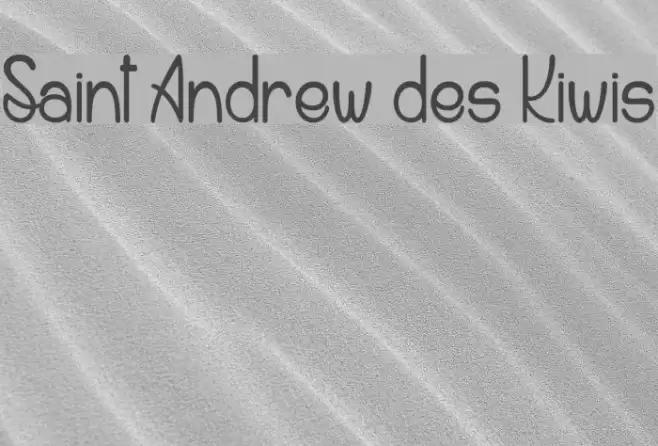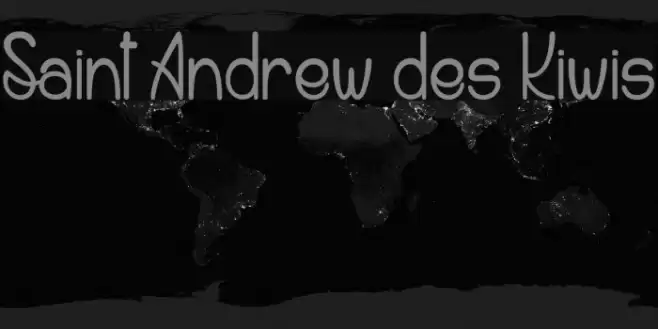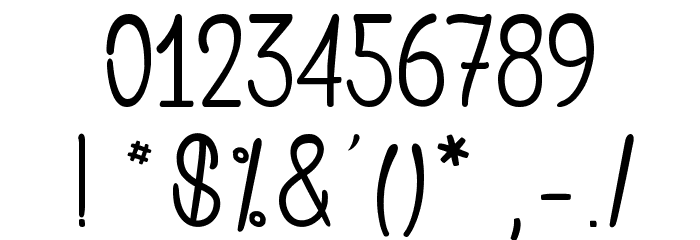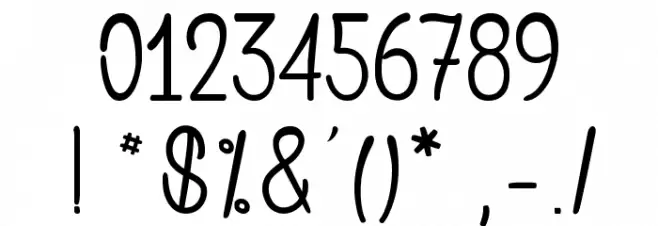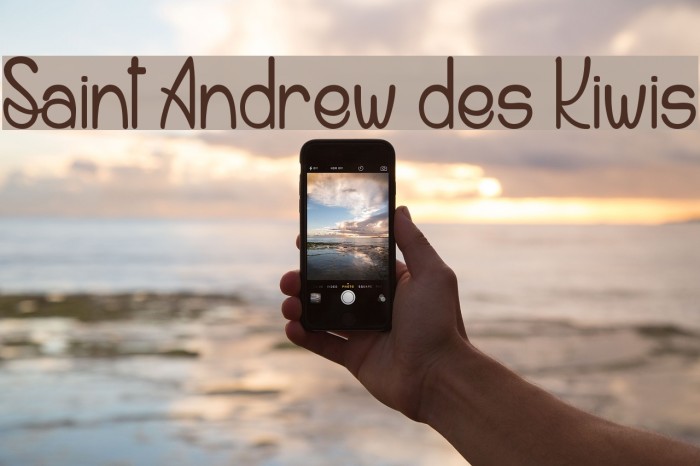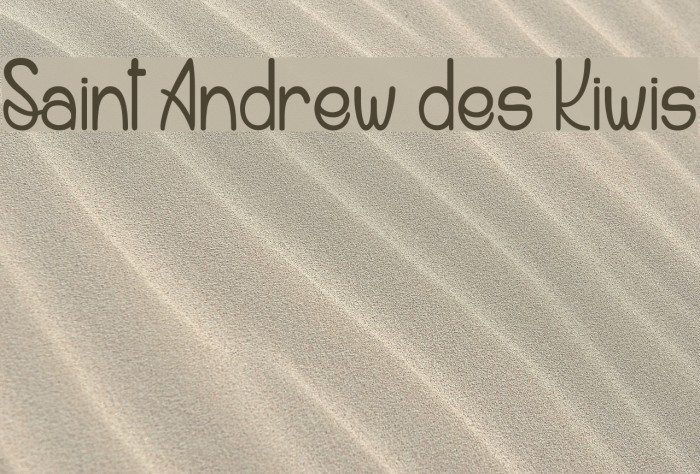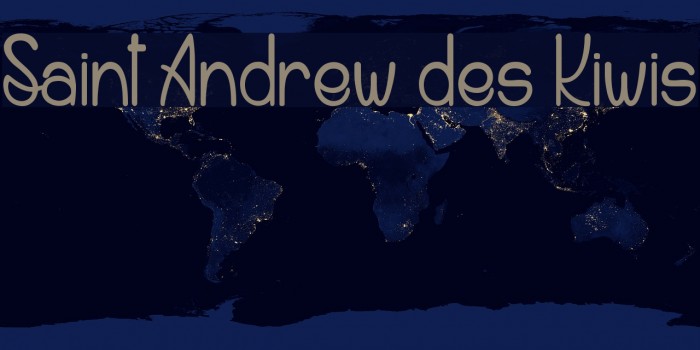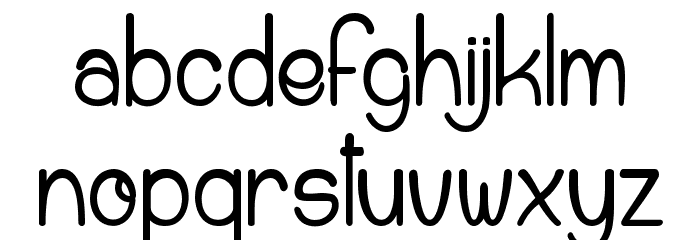
Saint Andrew des Kiwis Font
Saint Andrew des Kiwis Description
This font features a playful and whimsical design with a handwritten style. The characters are rounded and slightly elongated, giving them a friendly and approachable appearance. The uppercase letters have a consistent height, while the lowercase letters maintain a uniform baseline with slight variations in height for added charm. The numerals are clear and easy to read, matching the overall style of the alphabet. Special characters are included, maintaining the same playful aesthetic. This font is ideal for projects that require a touch of fun and personality.
A playful, handwritten font with rounded, elongated characters from Uncategorized fonts.
- Proposed Projects: Ideal for children's books, greeting cards, playful branding, and casual invitations.
- Overall Style: Playful
- Use Case: Headlines, Logos, Casual Text